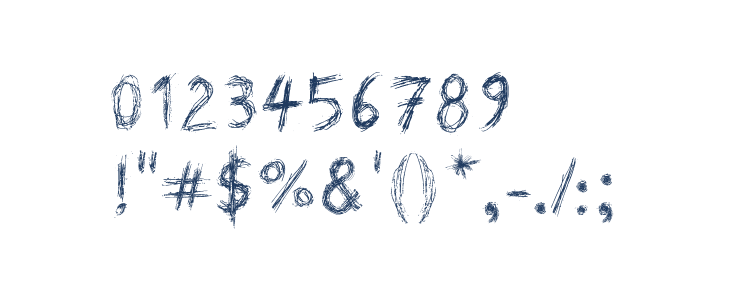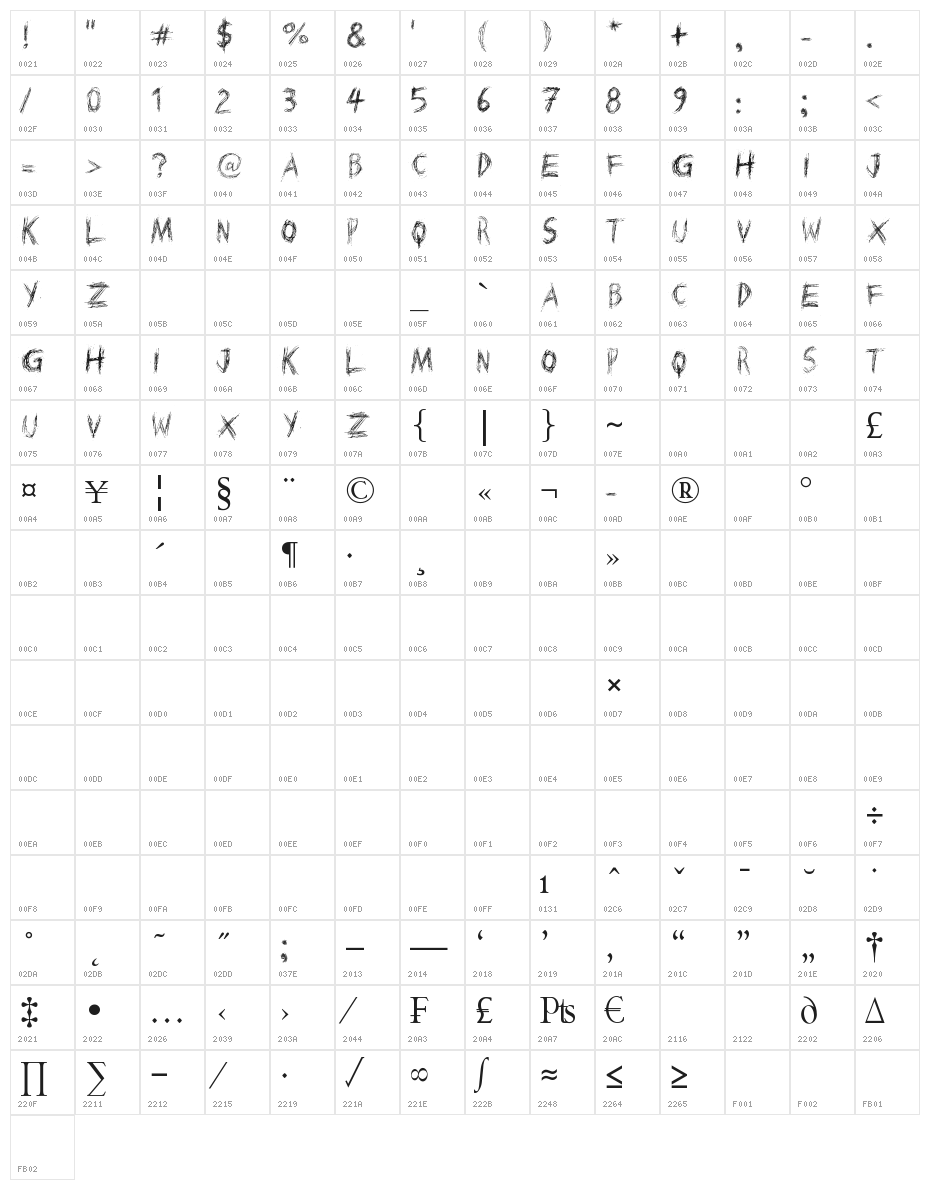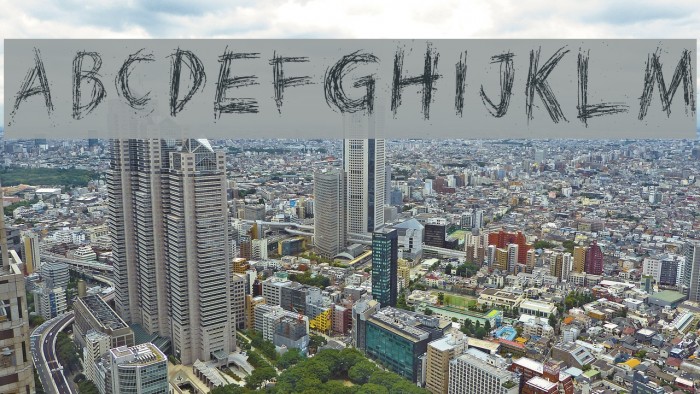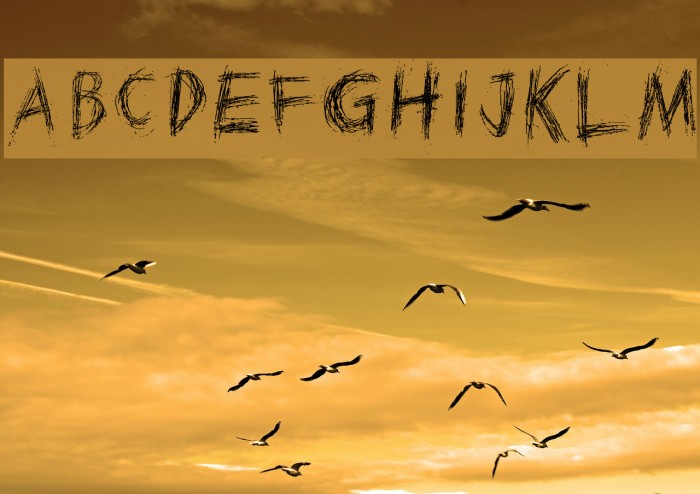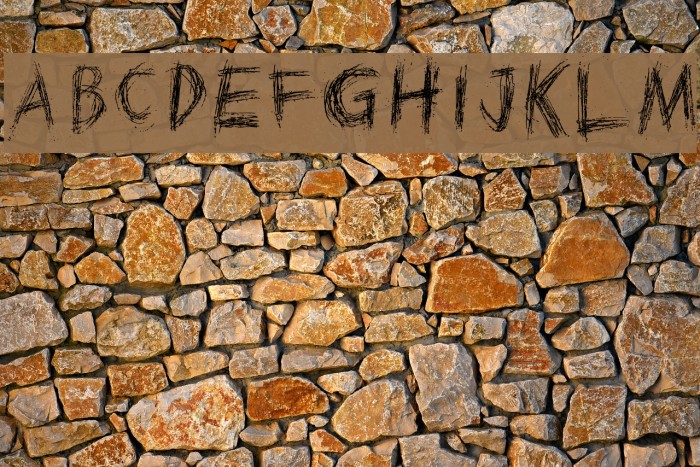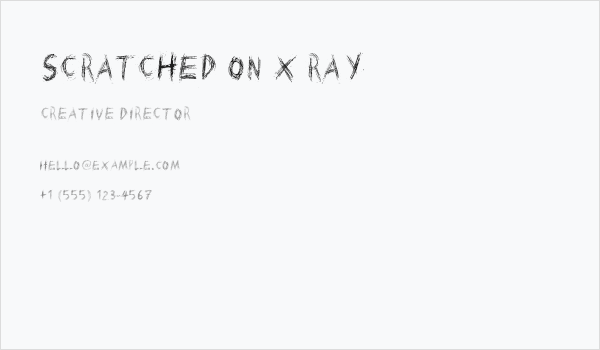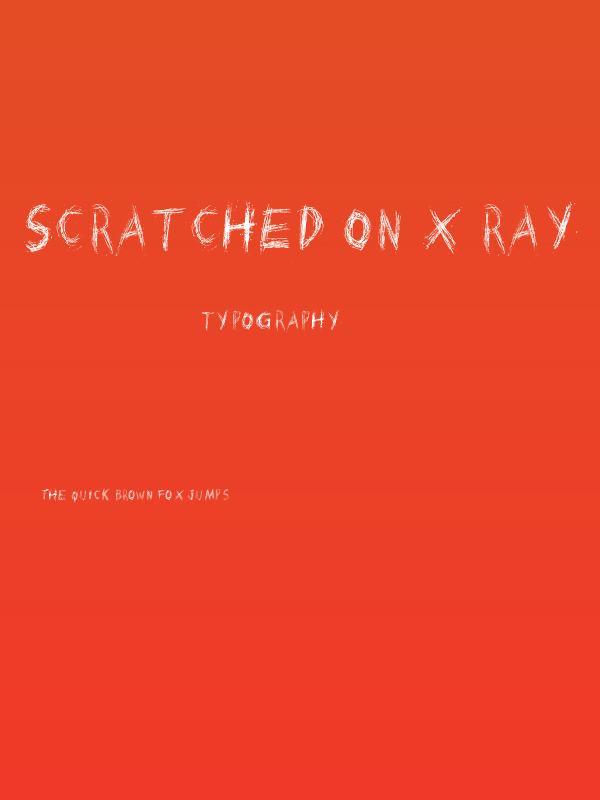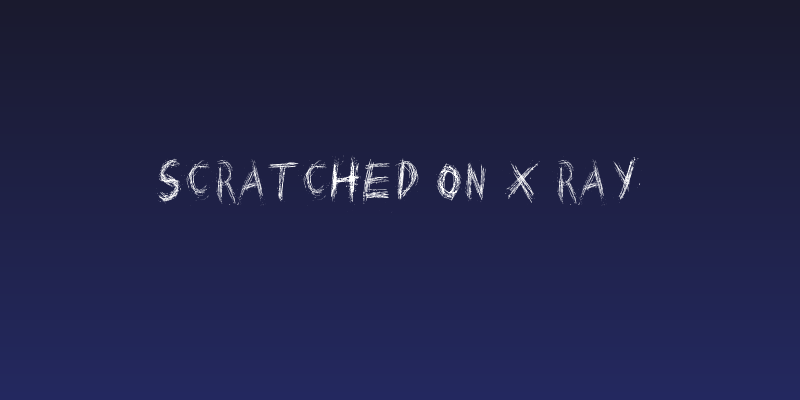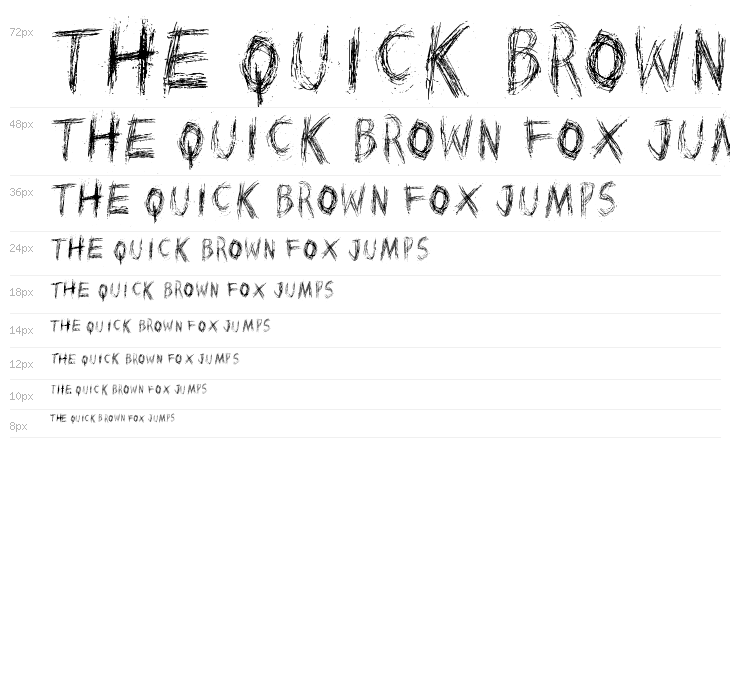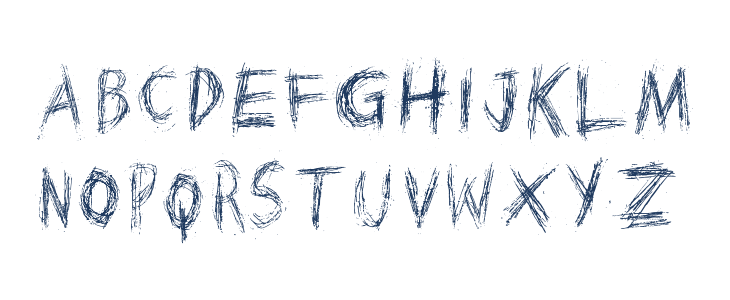
Scratched on X Ray Font
Scratched on X Ray Description
This font features a highly textured, distressed appearance, reminiscent of letters scratched onto a surface. Each character is unique, with irregular lines and a rough, hand-drawn quality that gives it a raw and edgy feel. The strokes are uneven, creating a sense of movement and energy. This style is particularly striking in its uppercase and lowercase letters, as well as in its numerals and special characters. The font's chaotic yet deliberate design makes it stand out, offering a bold statement in any project. Its organic, imperfect lines suggest a sense of urgency and emotion, making it ideal for designs that aim to convey intensity or a gritty aesthetic.
| Proposed Projects | Ideal for album covers, movie posters, horror-themed designs, and edgy branding projects. |